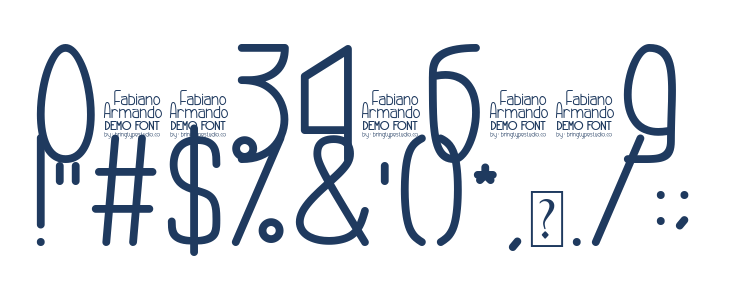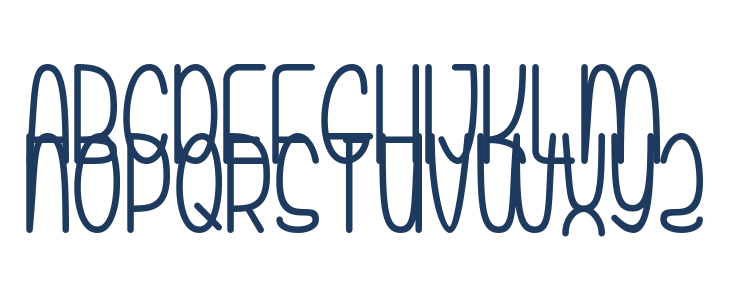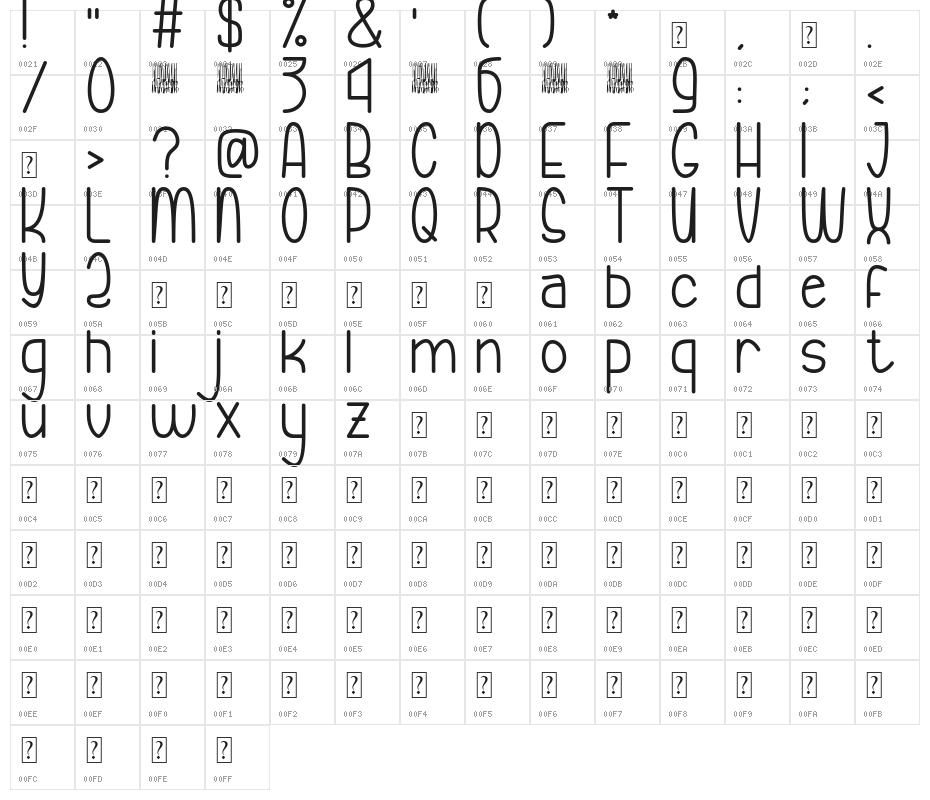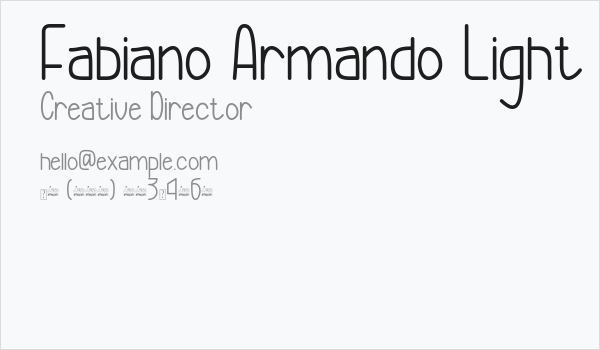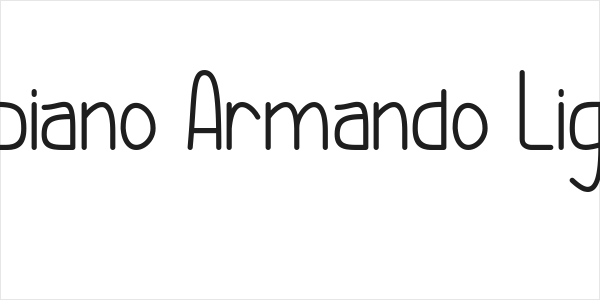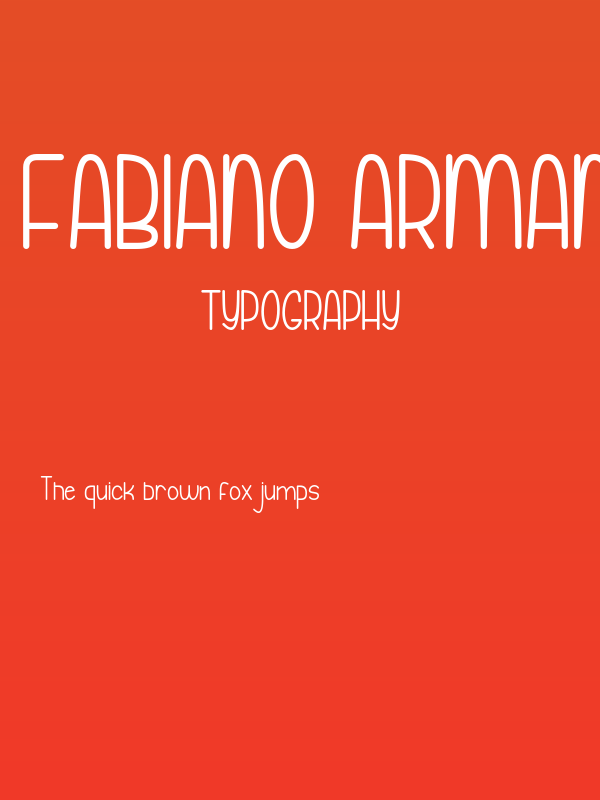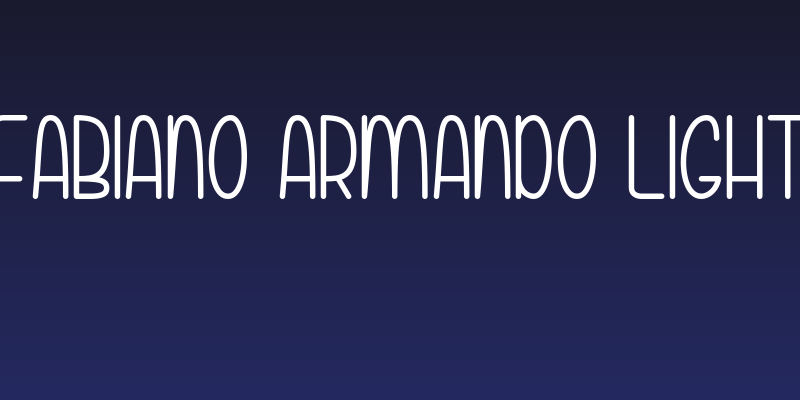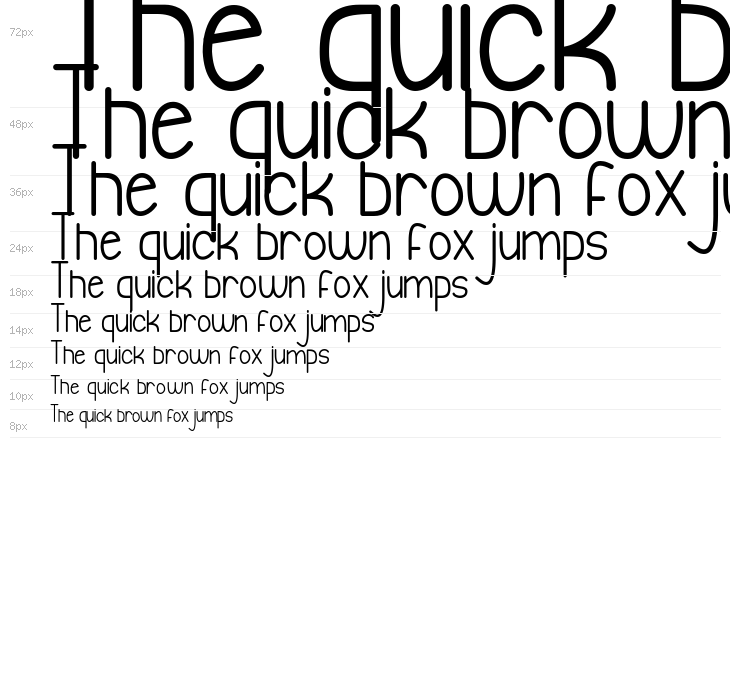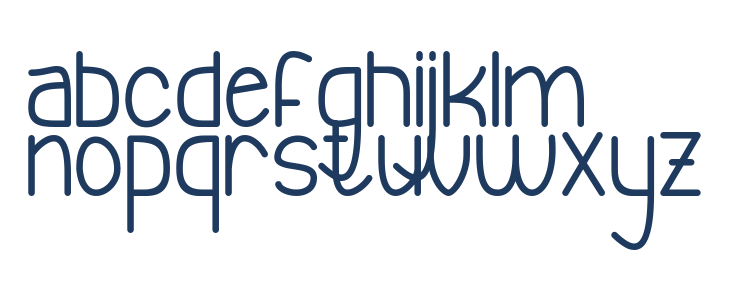
Fabiano Armando Light Font
Fabiano Armando Light Description
A rounded, geometric sans-serif typeface with tall, narrow letterforms and consistent stroke width. The characters have a playful, modern feel with open counters and minimal contrast, making the font appear friendly and approachable.
| Overall Style | Modern, Playful, Geometric |
| Use Case | Headlines, Posters, Branding, Display text |
| Proposed Projects | Children's books, casual branding, posters, invitations, tech startups, educational materials. |